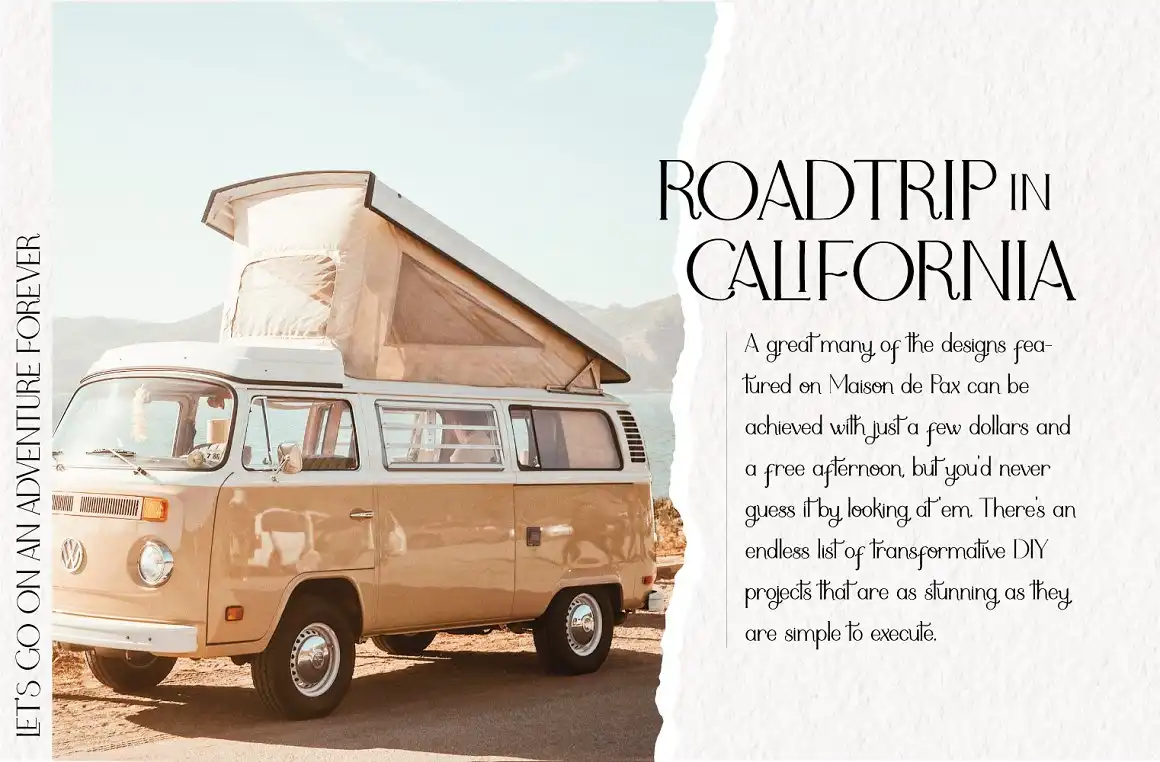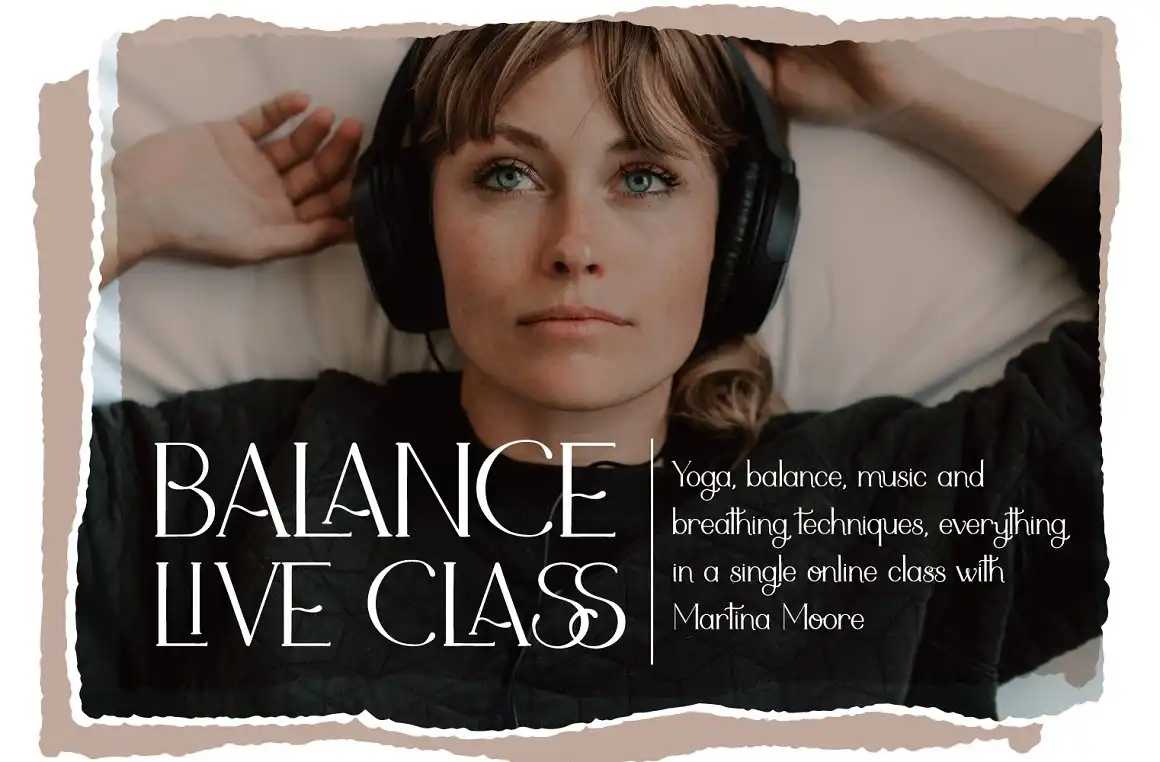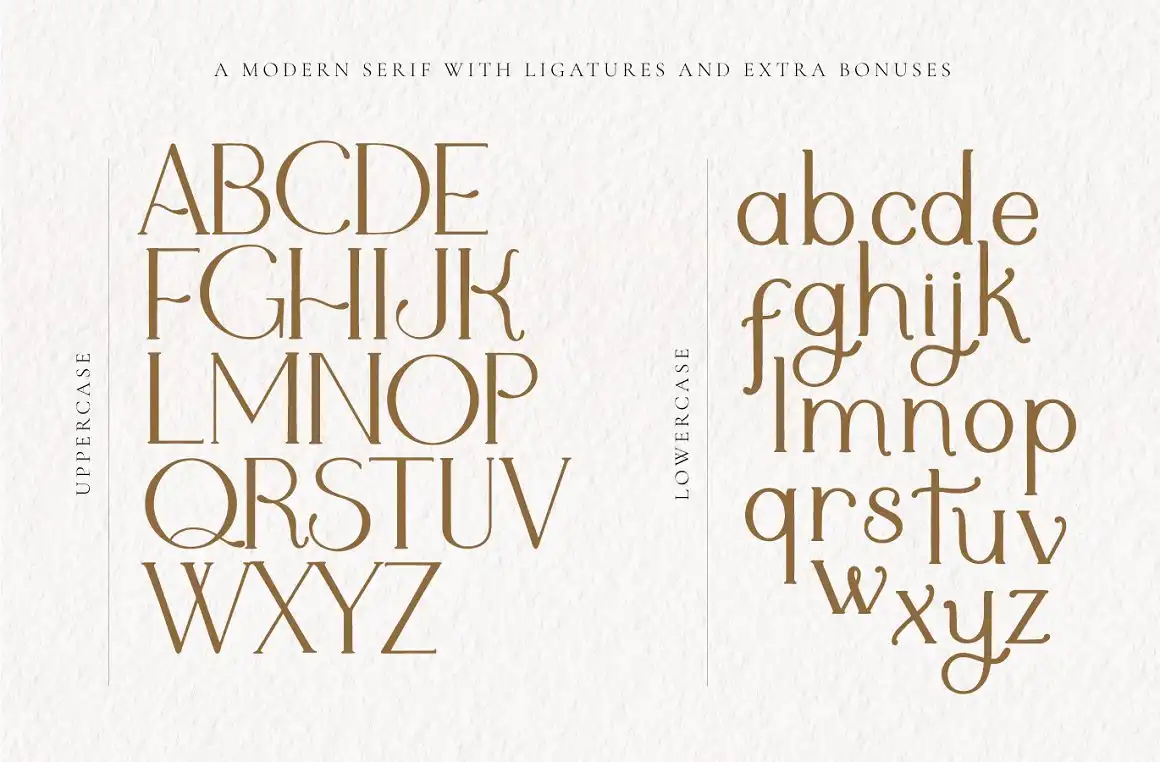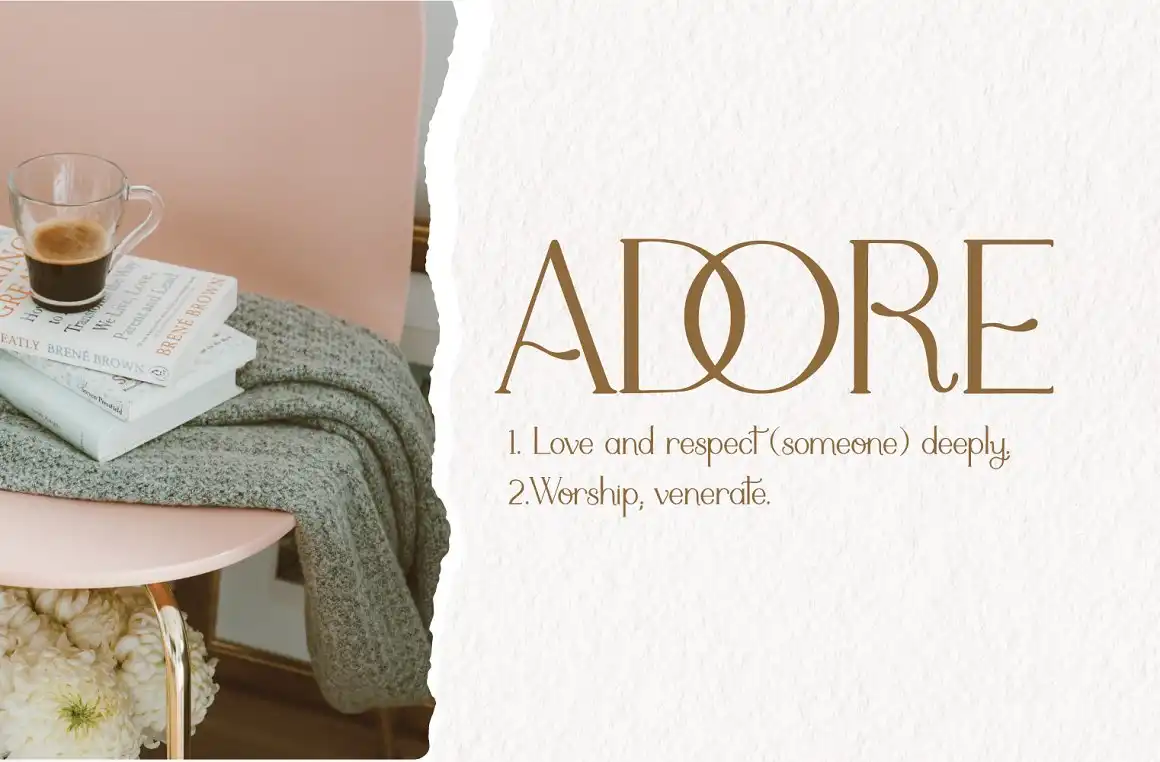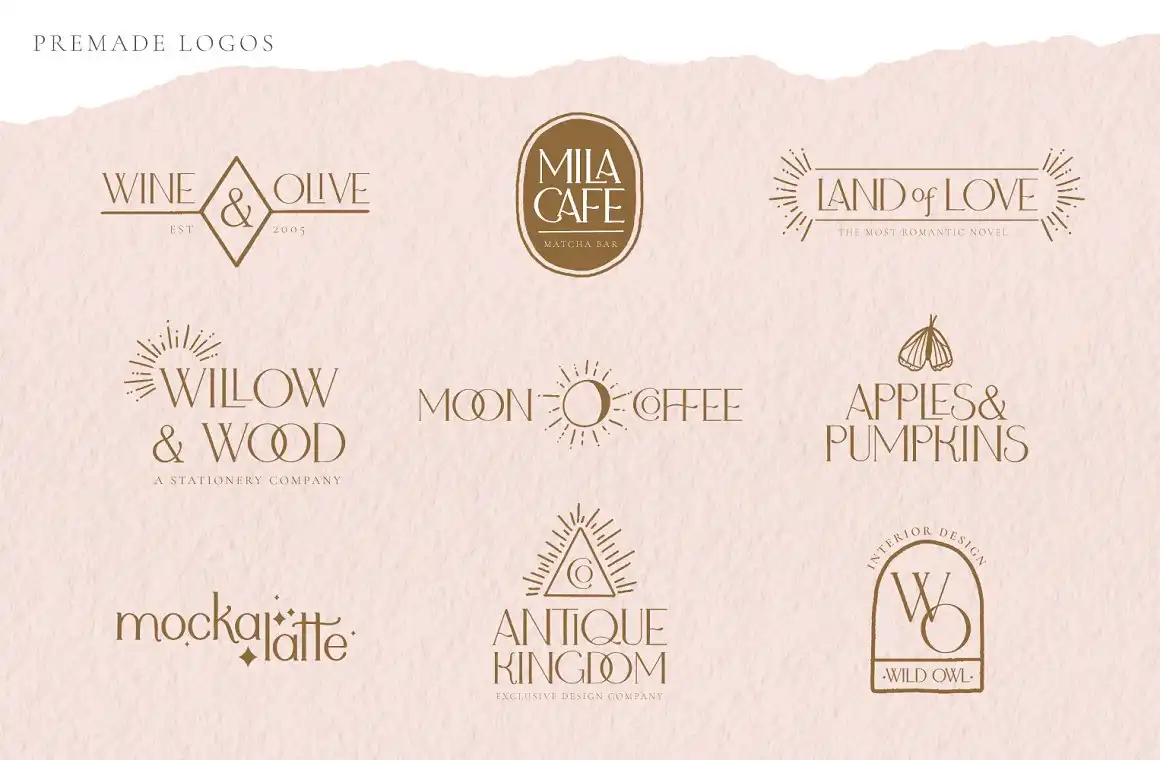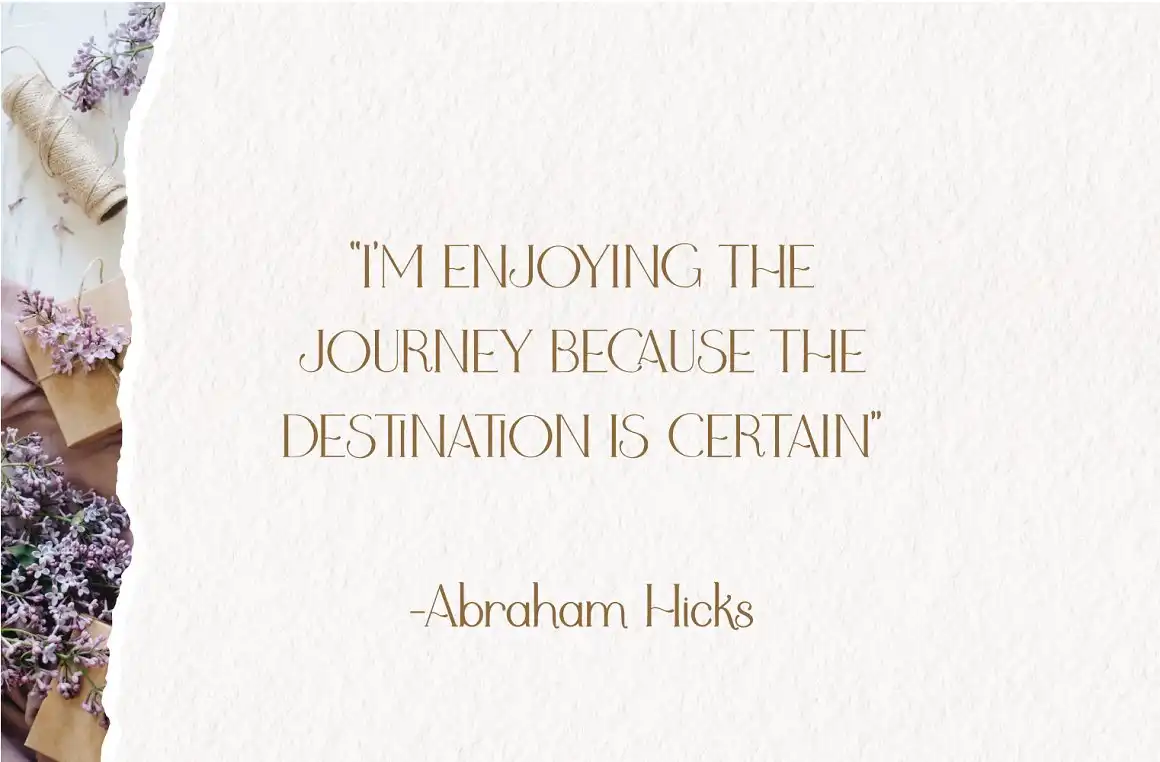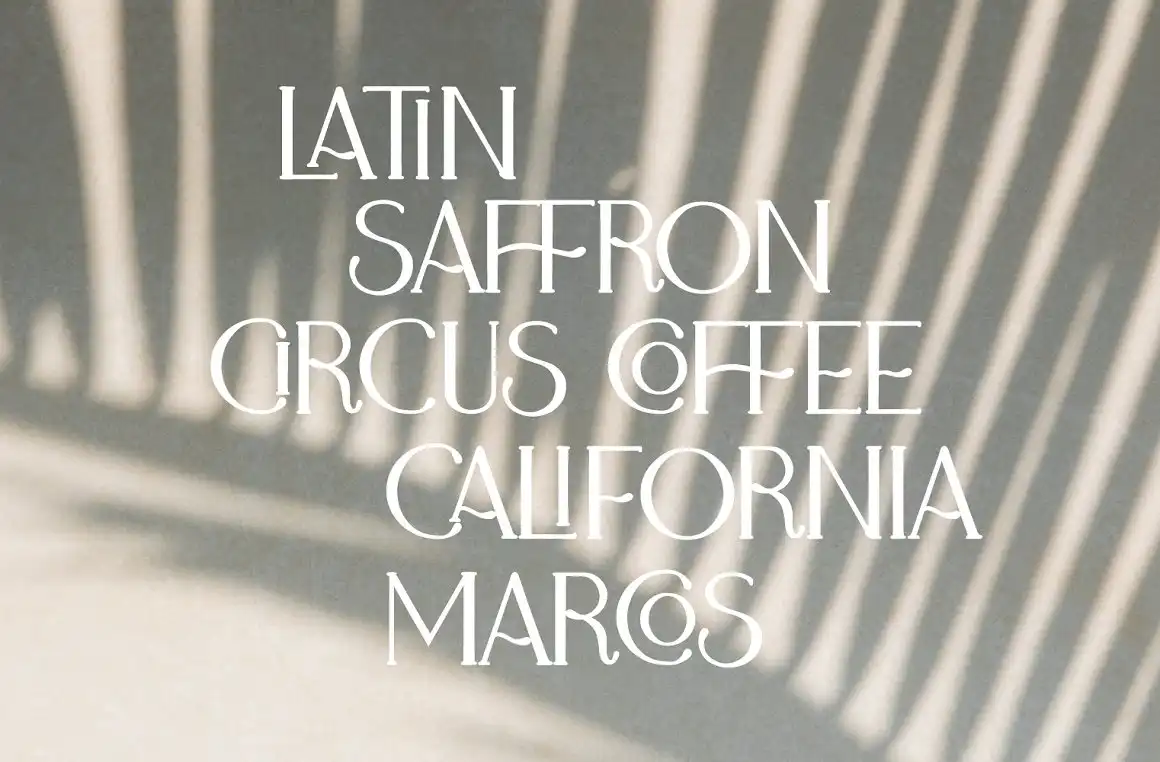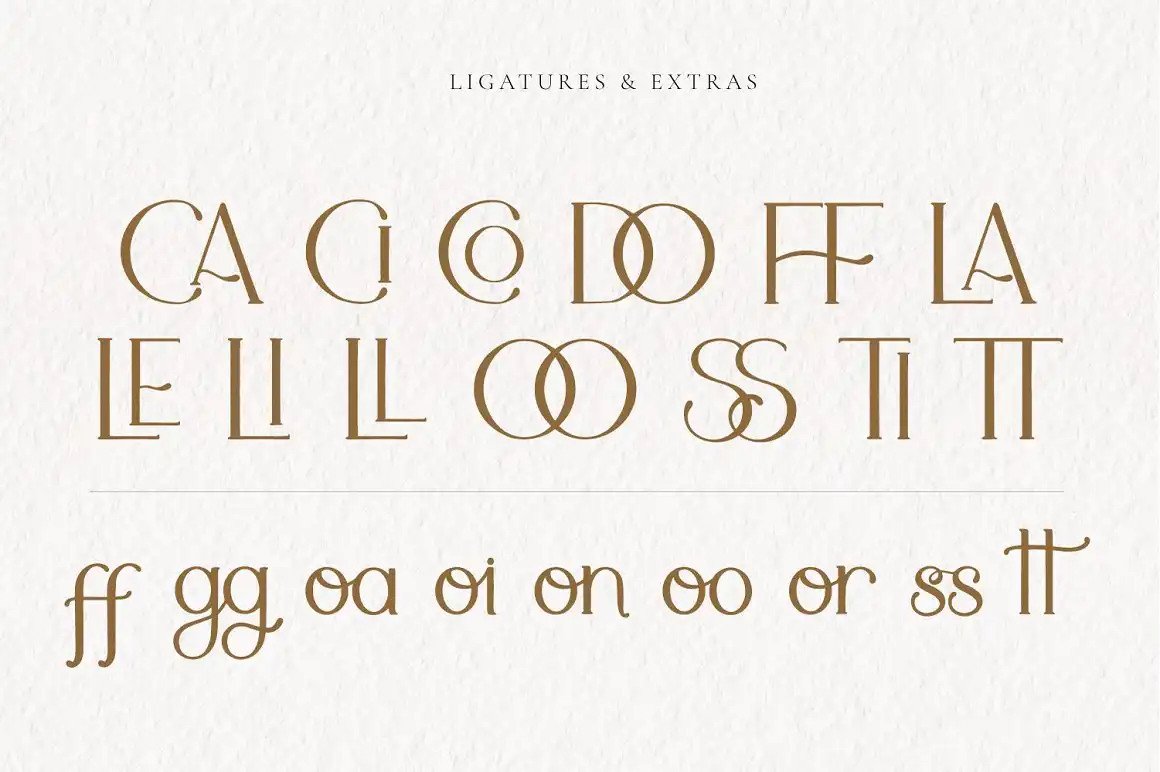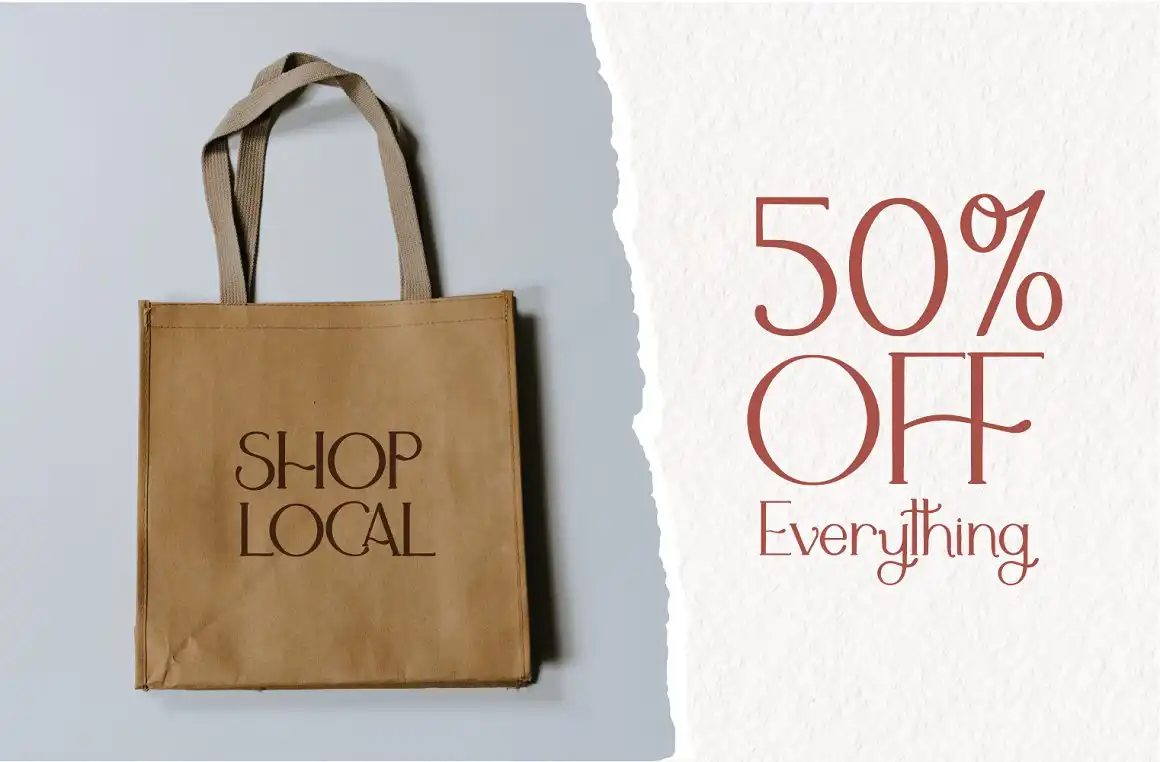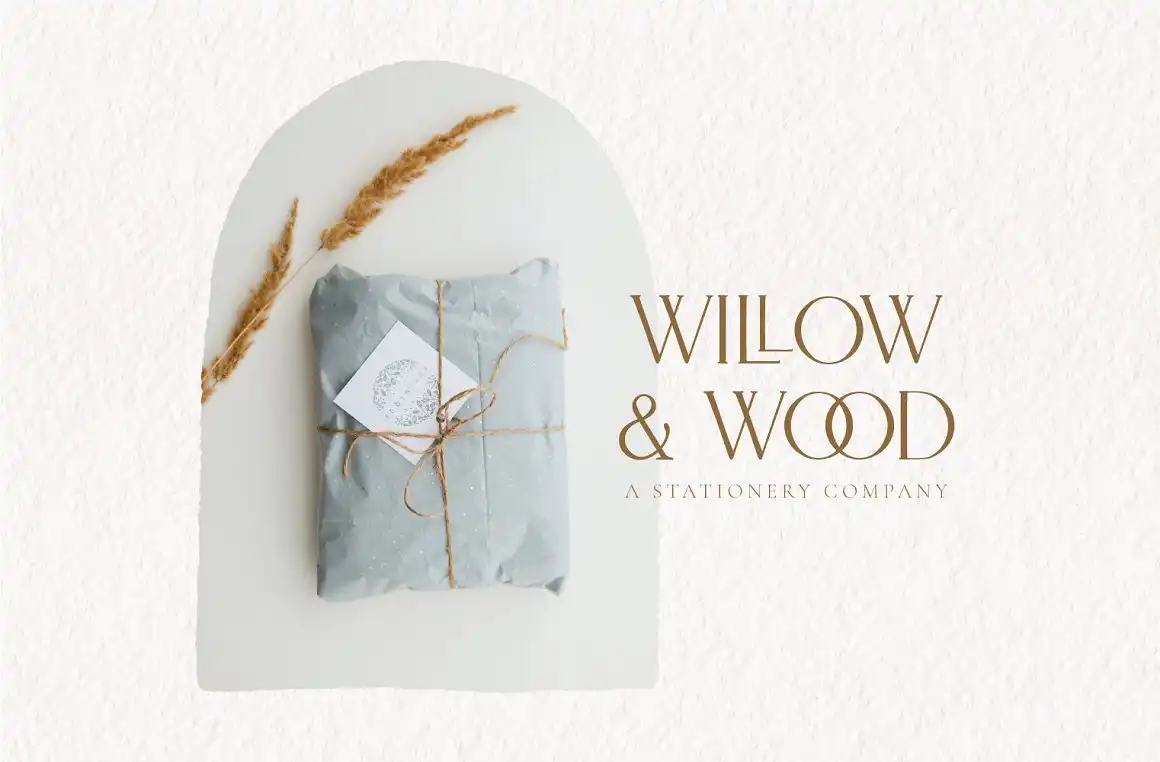
This digital download features the stunning Adele Moon serif font, an exquisite blend of Art Deco elegance and modern flair. With instant access, you can start creating captivating designs right away! 🎨
Adele Moon is not just any serif font; it’s a delightful creation that brings a touch of sophistication to your projects. Whether you’re designing logos, branding materials, or stylish invitations, this font will add a chic and classy vibe to your work. With its lovely uppercase ligatures, every title and header will shine! ✨
- Art Deco Inspiration: Perfectly captures the vintage charm while remaining modern.
- Uppercase Ligatures: 22 unique ligatures included to enhance your text and make it stand out.
- Versatile Glyphs: Both uppercase and lowercase letters that are suitable for any design project.
- BONUS Content: 9 premade logos and 13 trendy ripped-edge shapes to elevate your creations.
- Full upper and lowercase letters
- Numerals and Punctuation
- Accents (Multi-lingual support) including ˆ´ `¨ ¸ ~
- 22 classy ligatures